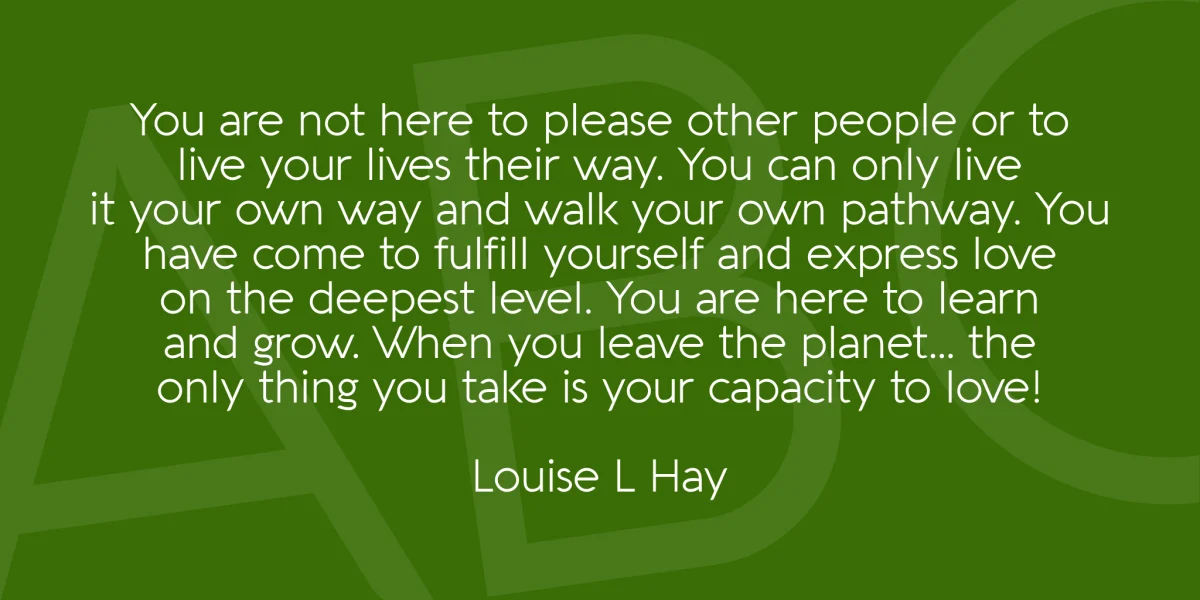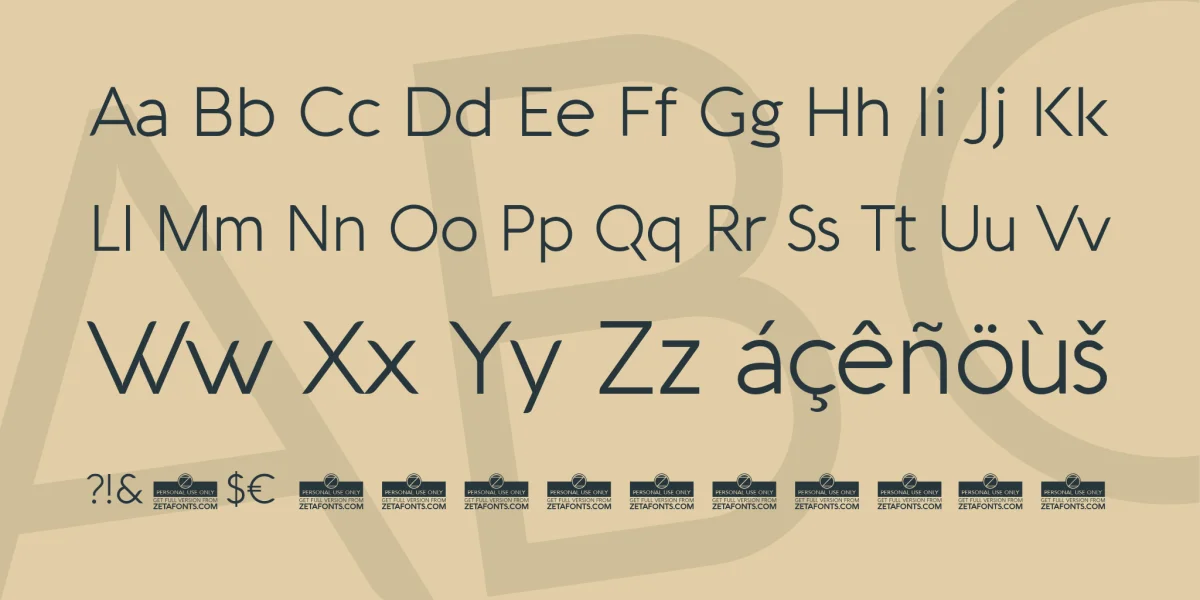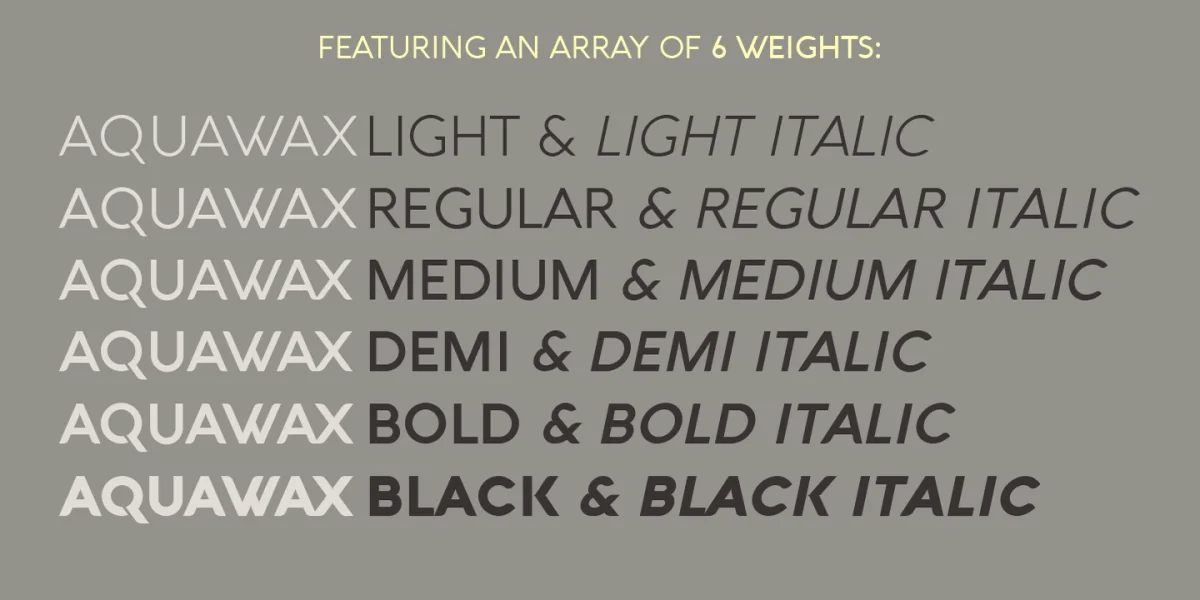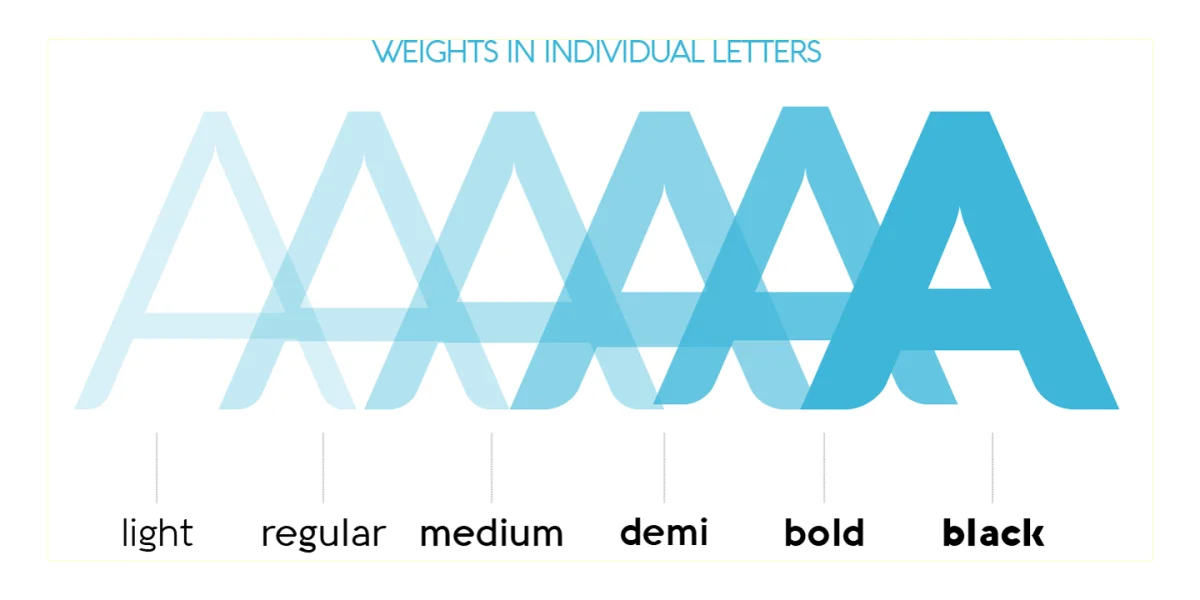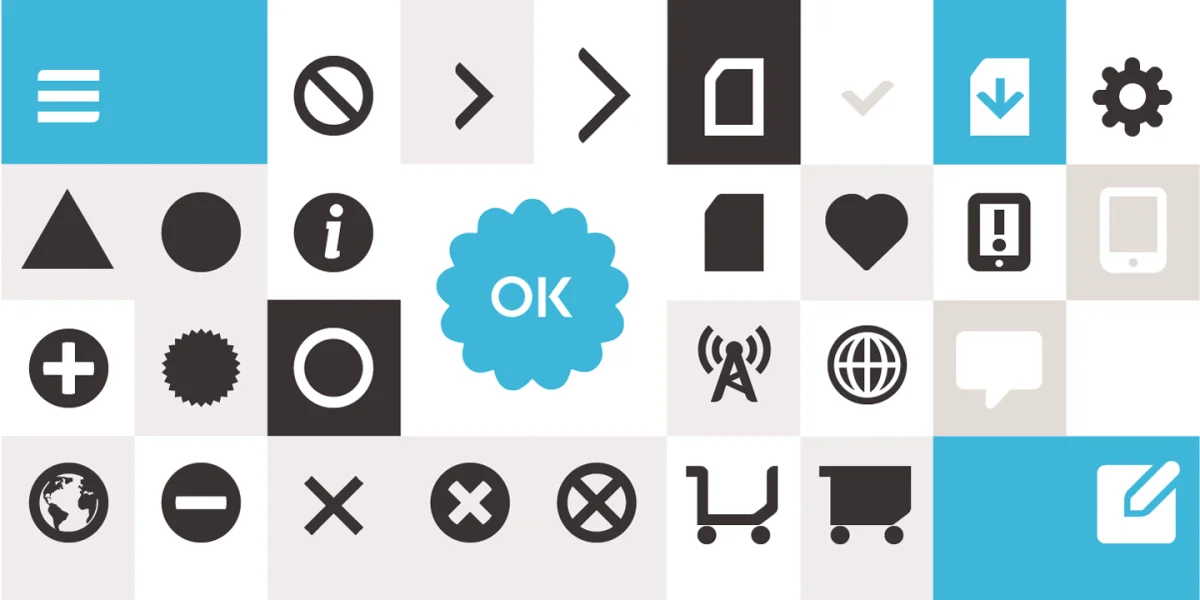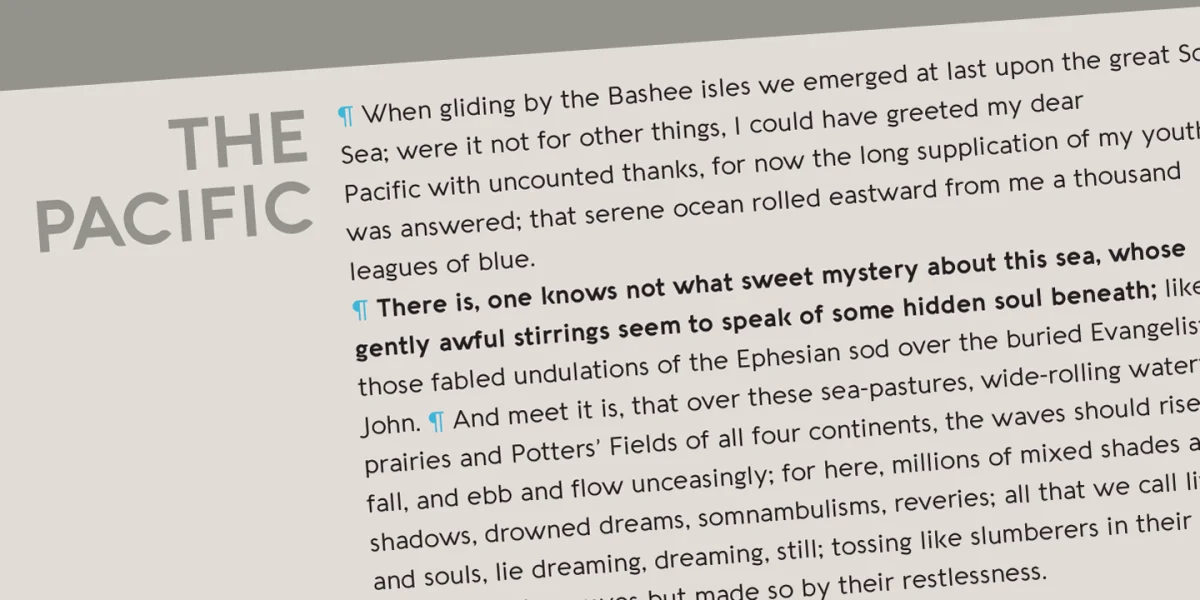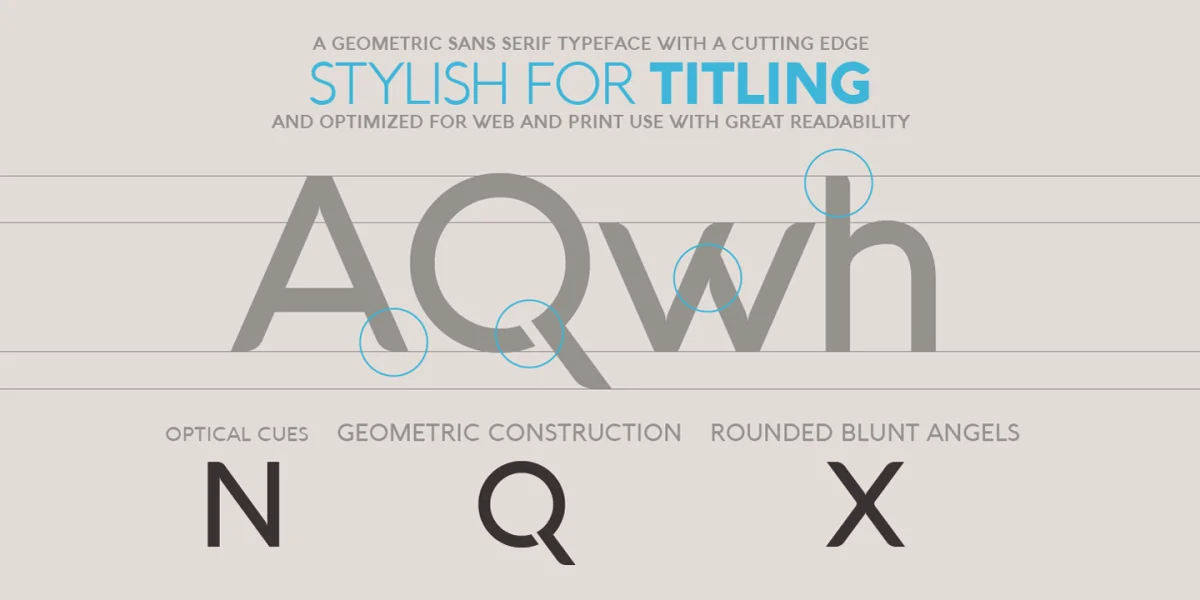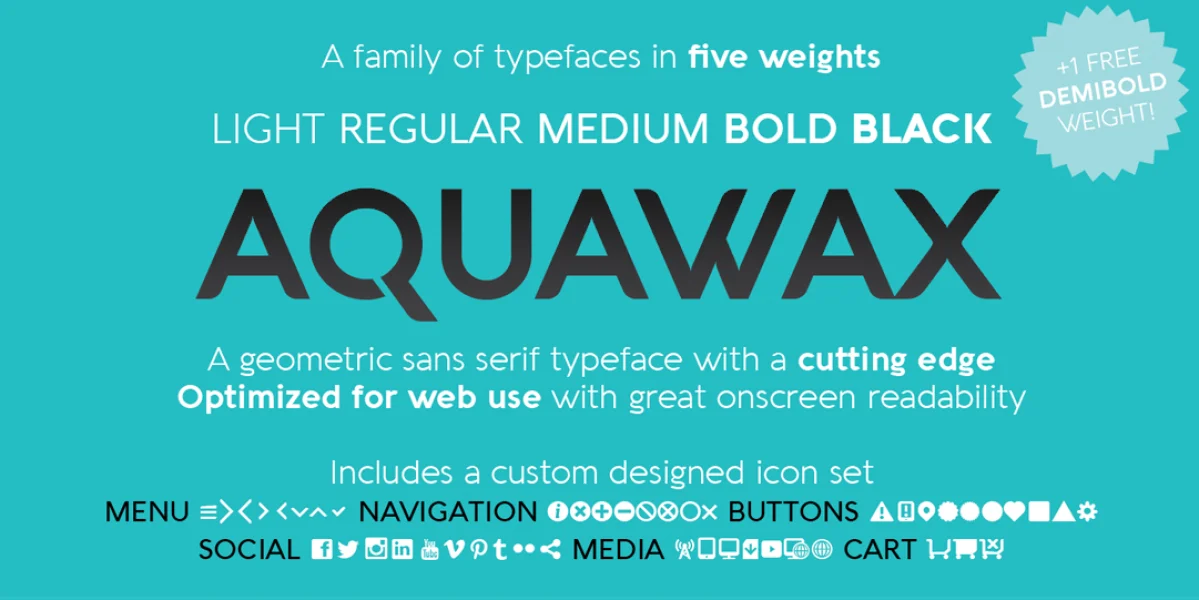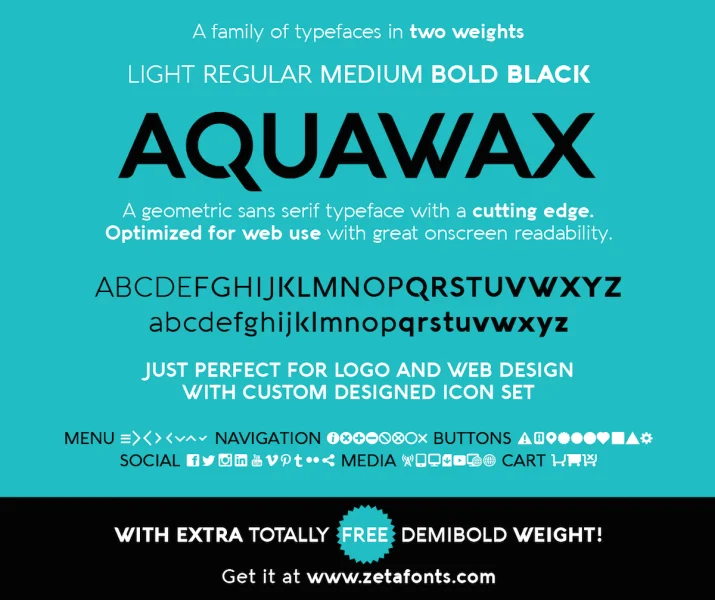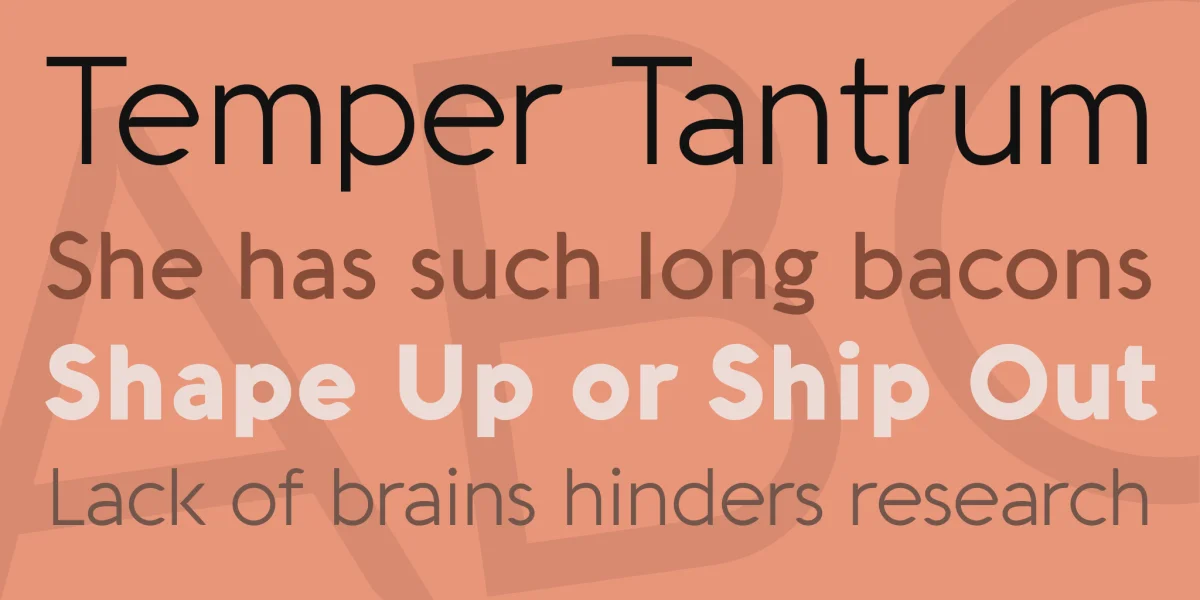
AQUAWAX is a contemporary sans serif typeface family designed by Francesco Canovaro. Balancing sharp angles with soft rounded shapes, the typeface wants to evoke a digital, contemporary sensibility of liquid connections and digital smoothness. Aquawax covers over 40 languages that use the Latin alphabet, with full range of accents and diacritics.